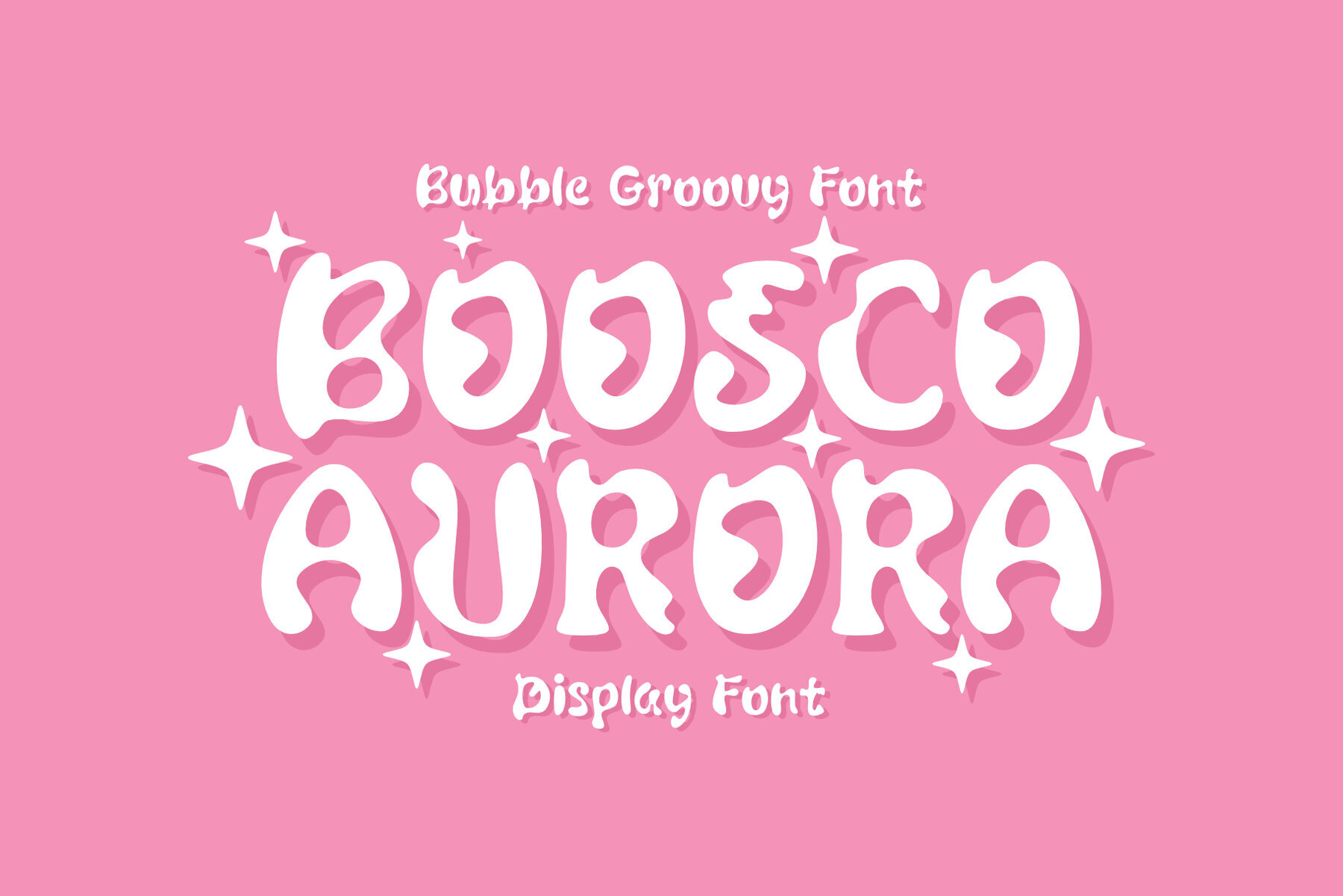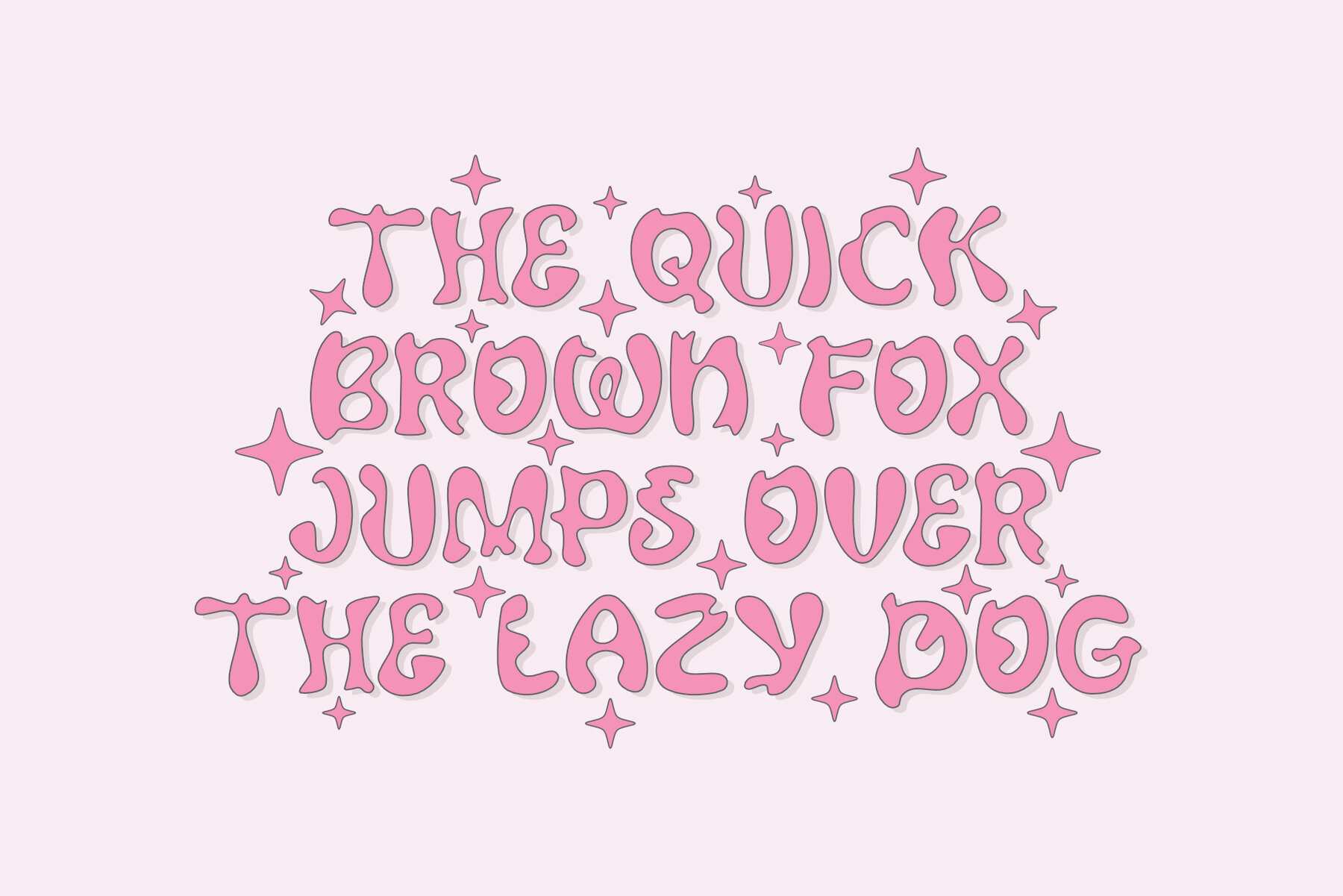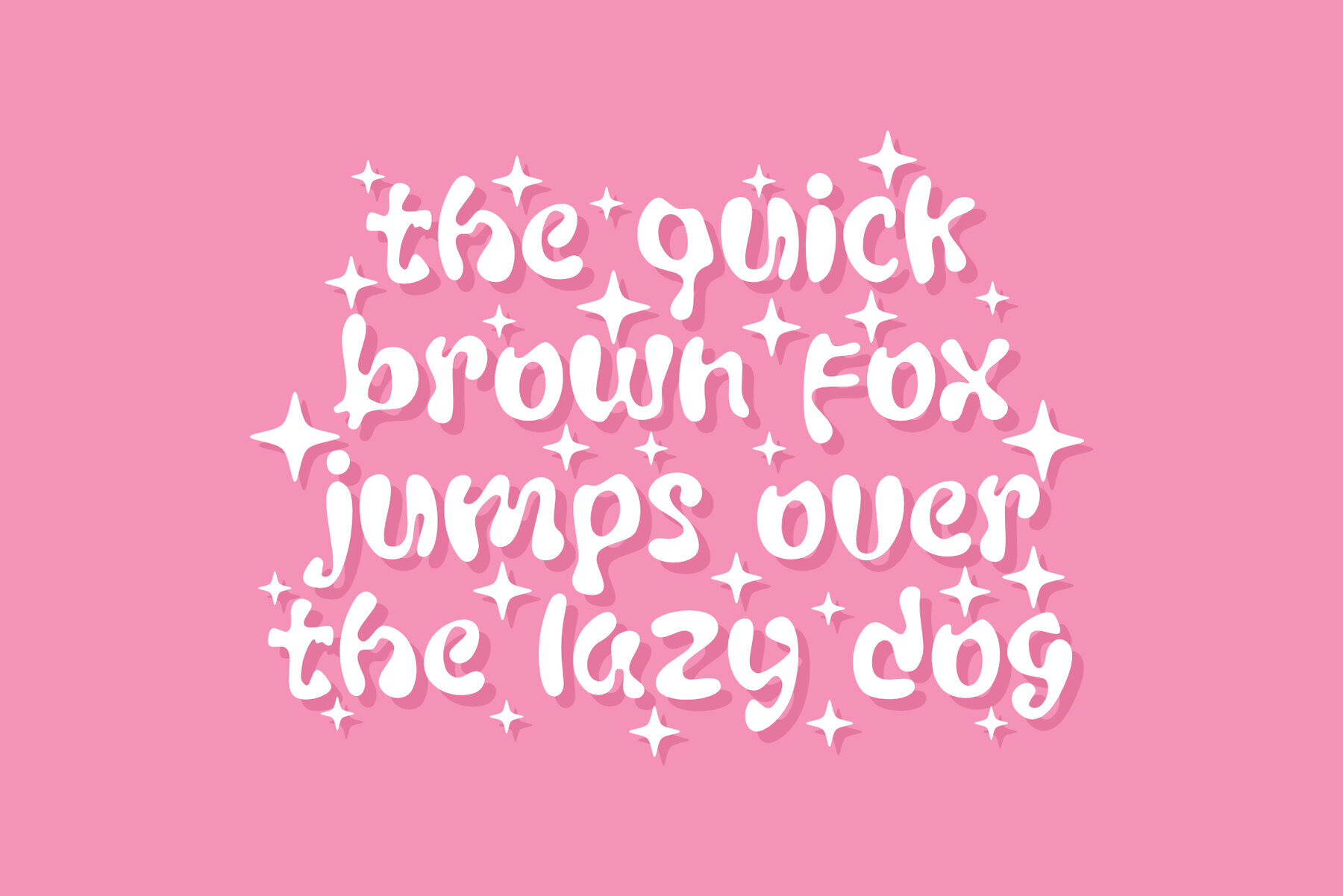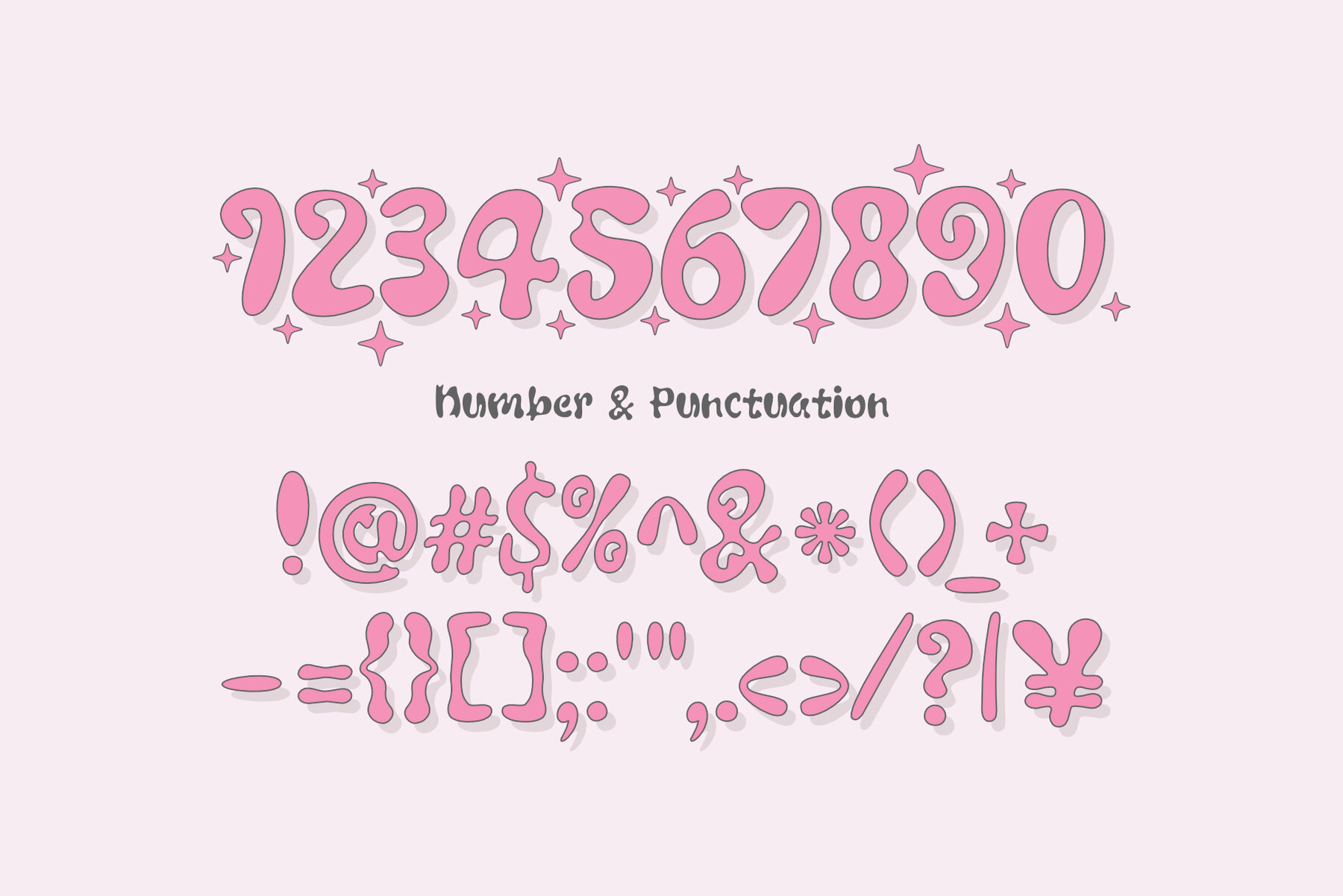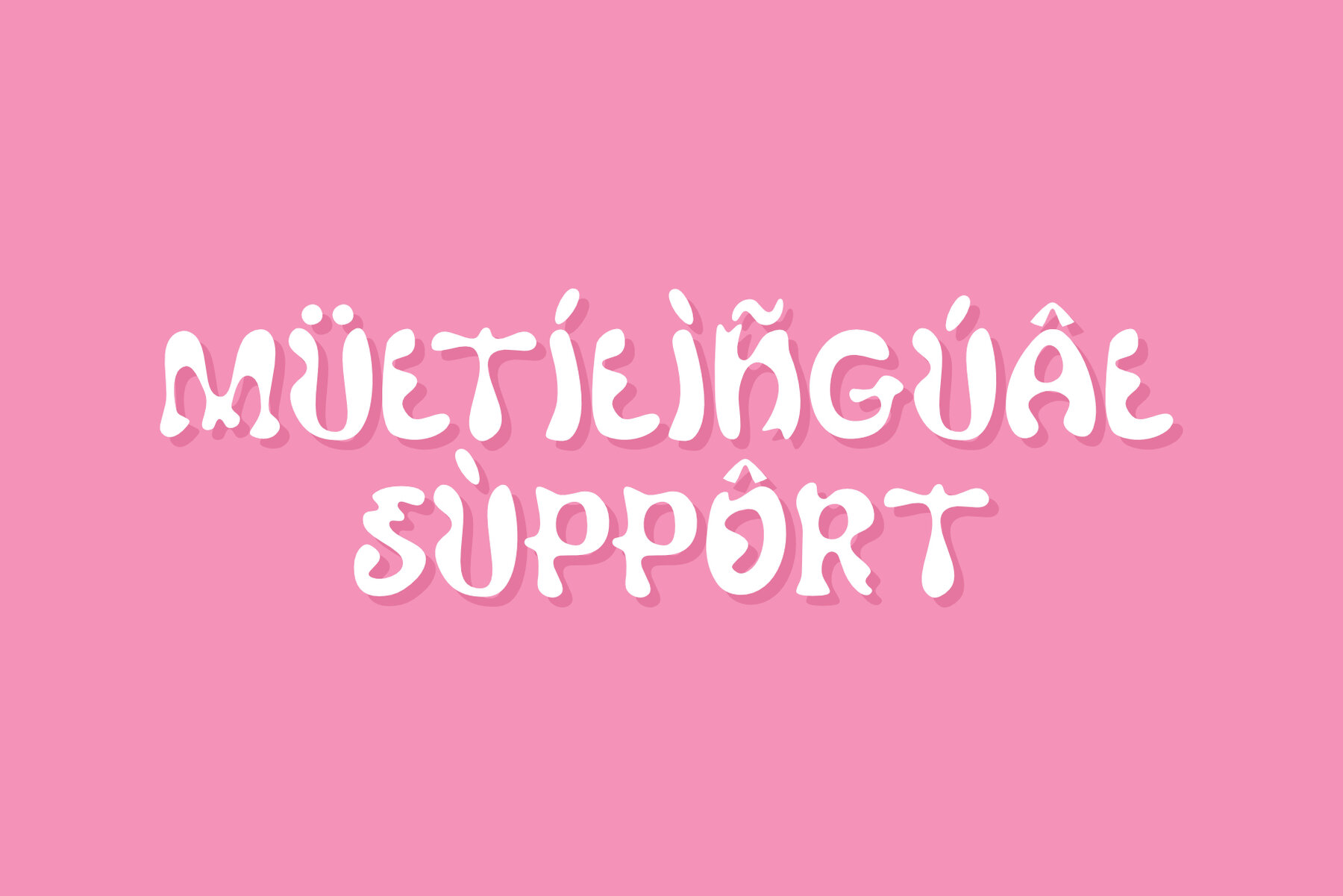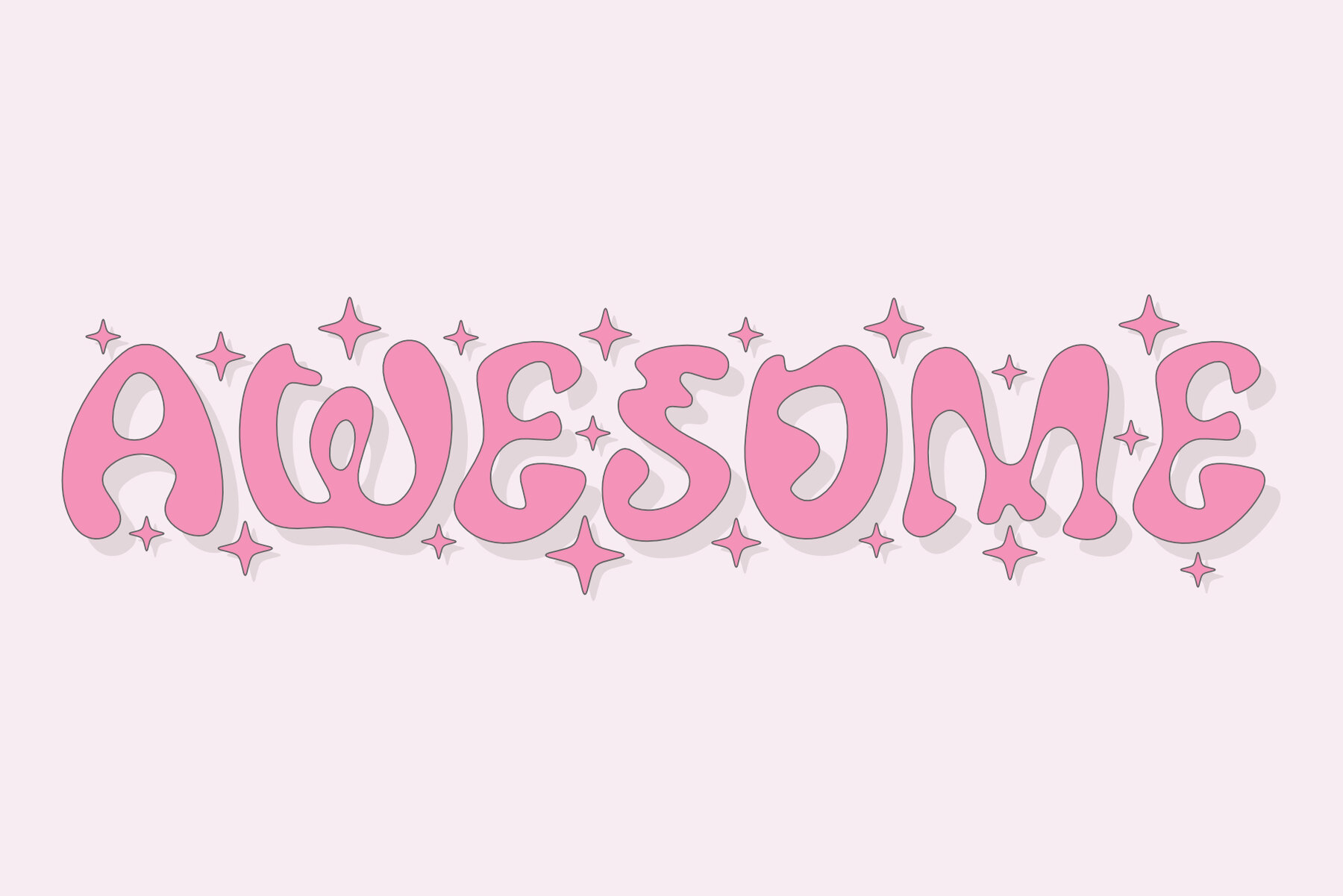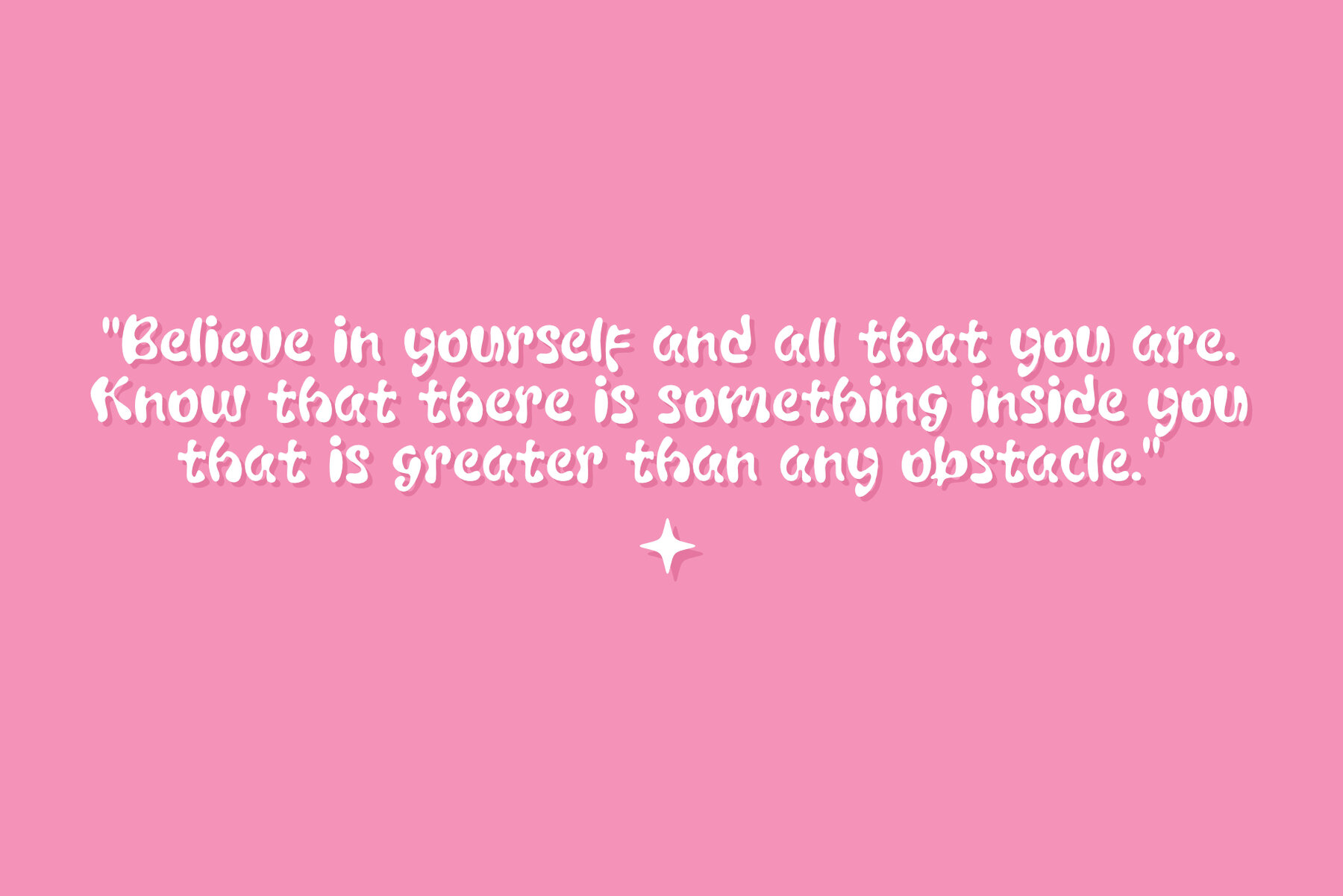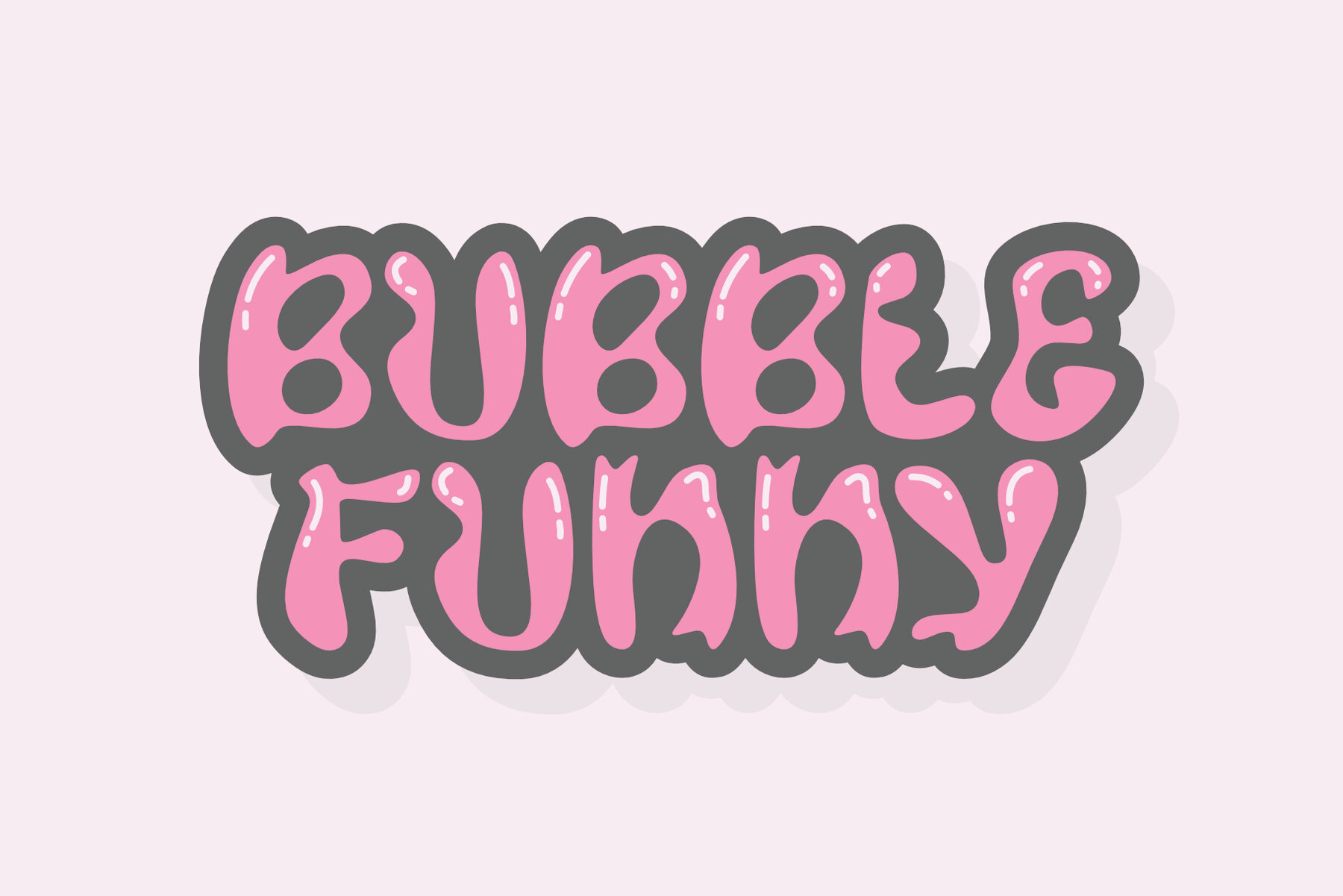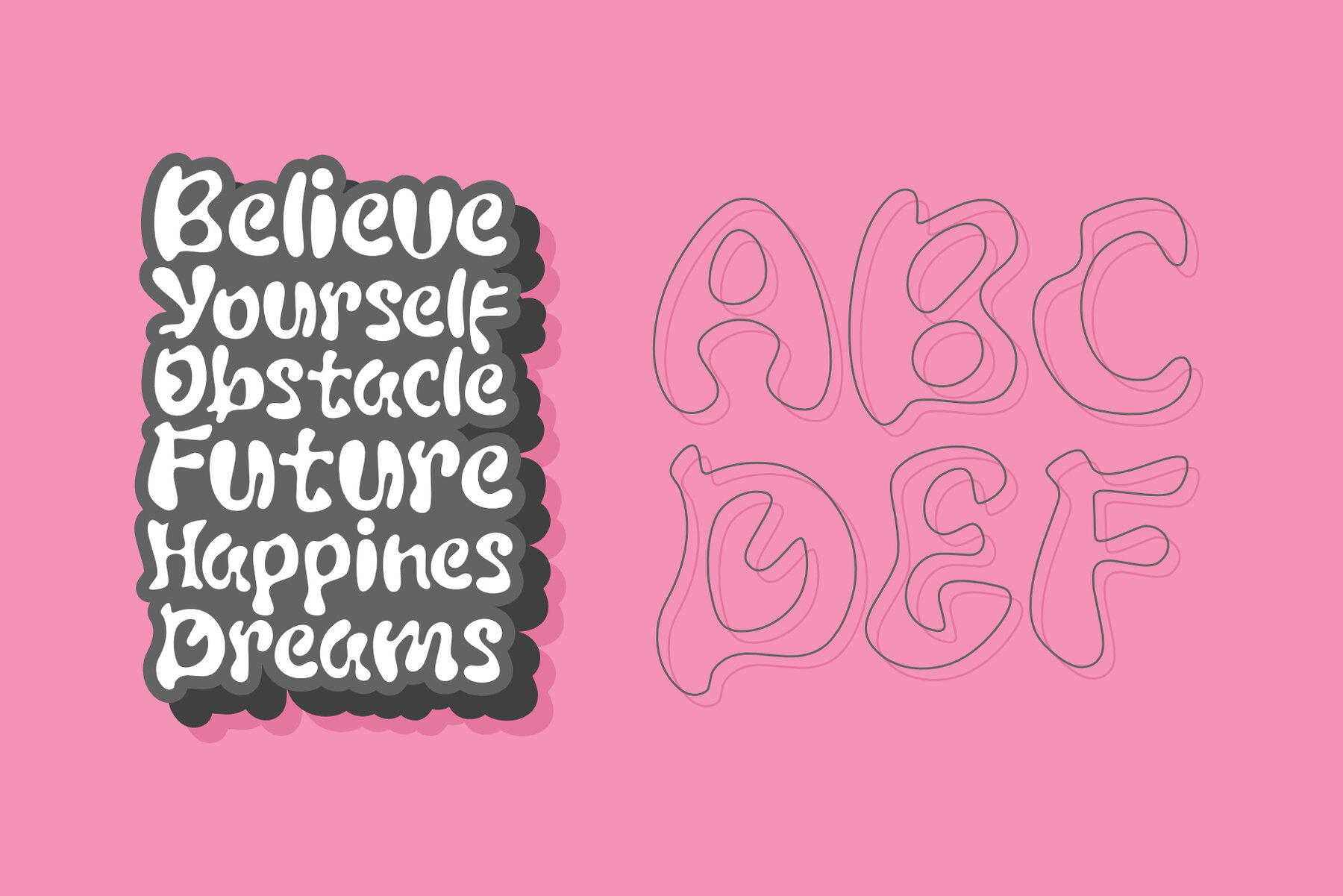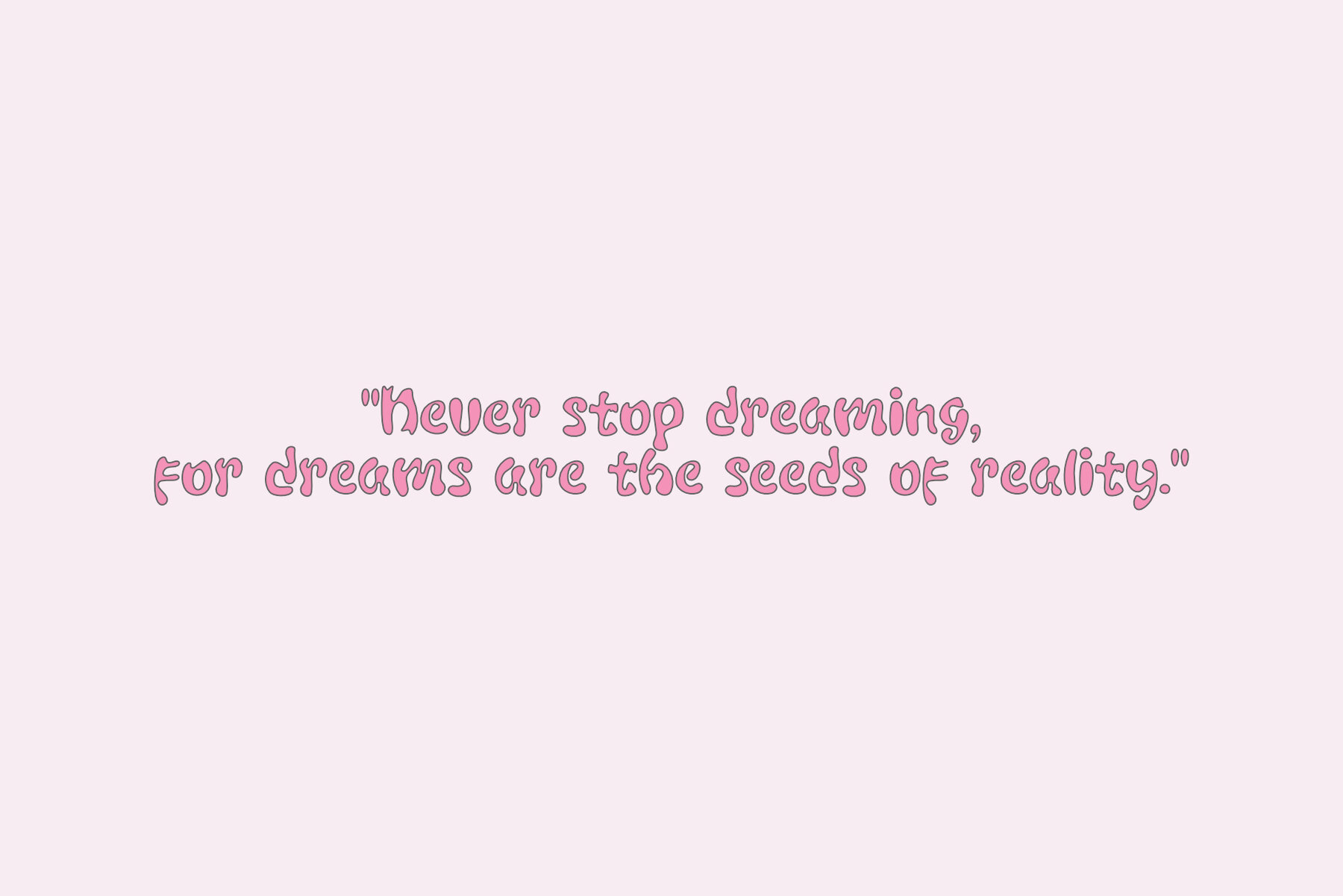
Boosco Aurora Font
Boosco Aurora Regular
Boosco Aurora is a vibrant display font that bursts with energy and liveliness. Its bubbly letterforms and playful curves channel a spirit of joy and excitement, making it ideal for infusing a bit of whimsy into any project. Perfect for a variety of projects, Boosco Aurora shines in cheerful designs, party invitations, children’s projects, and social media graphics. Whenever you need to add a playful touch, this font will brighten up your creative work with its bold charm and delightful personality.Boosco Aurora: A Celebration of Fun
Features of Boosco Aurora